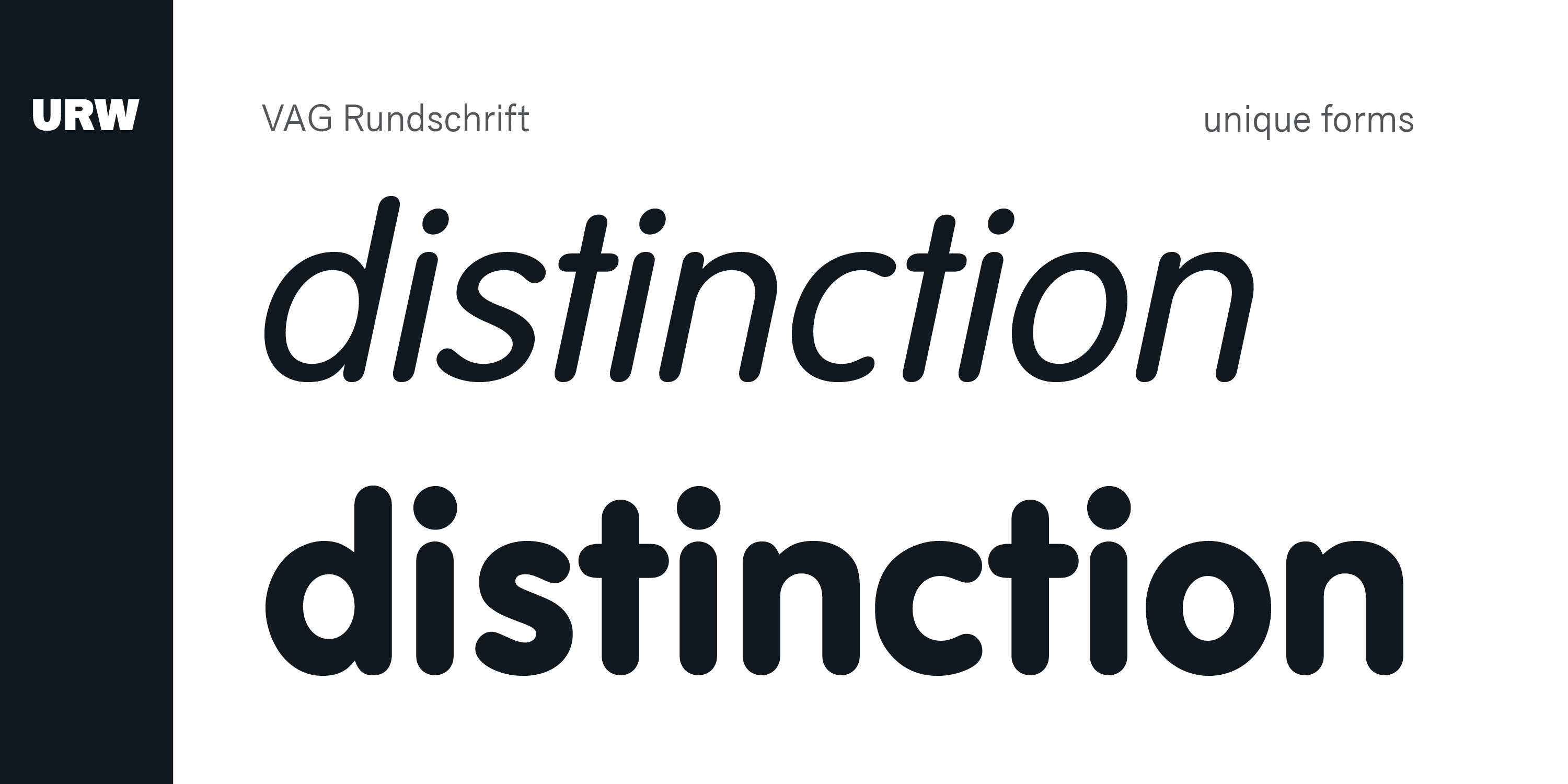
The VAG Rundschrift Font is ideal for German engineering companies, automotive industry branding, precision manufacturing logos, technical documentation, industrial design projects, European corporate identities, mechanical systems signage, and professional German business communications. This authoritative typeface excels in projects for German manufacturers, automotive brands, engineering firms, precision industries, and businesses seeking to convey Germanic excellence, technical precision, and the renowned quality standards of German industrial craftsmanship.
What makes the VAG Rundschrift Font exciting is its authentic embodiment of German design philosophy with rounded geometric precision and industrial reliability. The font features carefully engineered letterforms with clean geometric construction and subtle rounded details that reflect the meticulous attention to detail and engineering excellence characteristic of German design tradition. Its technical character and Germanic heritage make it perfect for brands seeking to establish credibility through association with German quality, precision engineering, and industrial innovation. The font's systematic design and engineering precision create immediate trust in technical and manufacturing contexts.
The VAG Rundschrift Font family includes precisely-engineered variations: Light Technical, Regular Industrial, Medium Engineering, Bold Manufacturing, Heavy Precision, and Ultra versions. Each weight maintains perfect geometric consistency while offering different visual densities for complex technical documentation and industrial applications. The family also features technical symbols, engineering marks, Germanic ornaments, and precision elements essential for German industrial and automotive design projects.
Whether you're developing German-inspired brand identities, creating precision marketing materials, or designing technical promotional campaigns, the VAG Rundschrift Font Free Download provides the ultimate solution for projects requiring authentic Germanic typography. This exceptional typeface brings genuine German engineering excellence to design work, making it an indispensable resource for designers working with automotive companies, manufacturing firms, engineering organizations, and brands celebrating German precision, industrial innovation, and the legendary quality of Germanic technical craftsmanship.